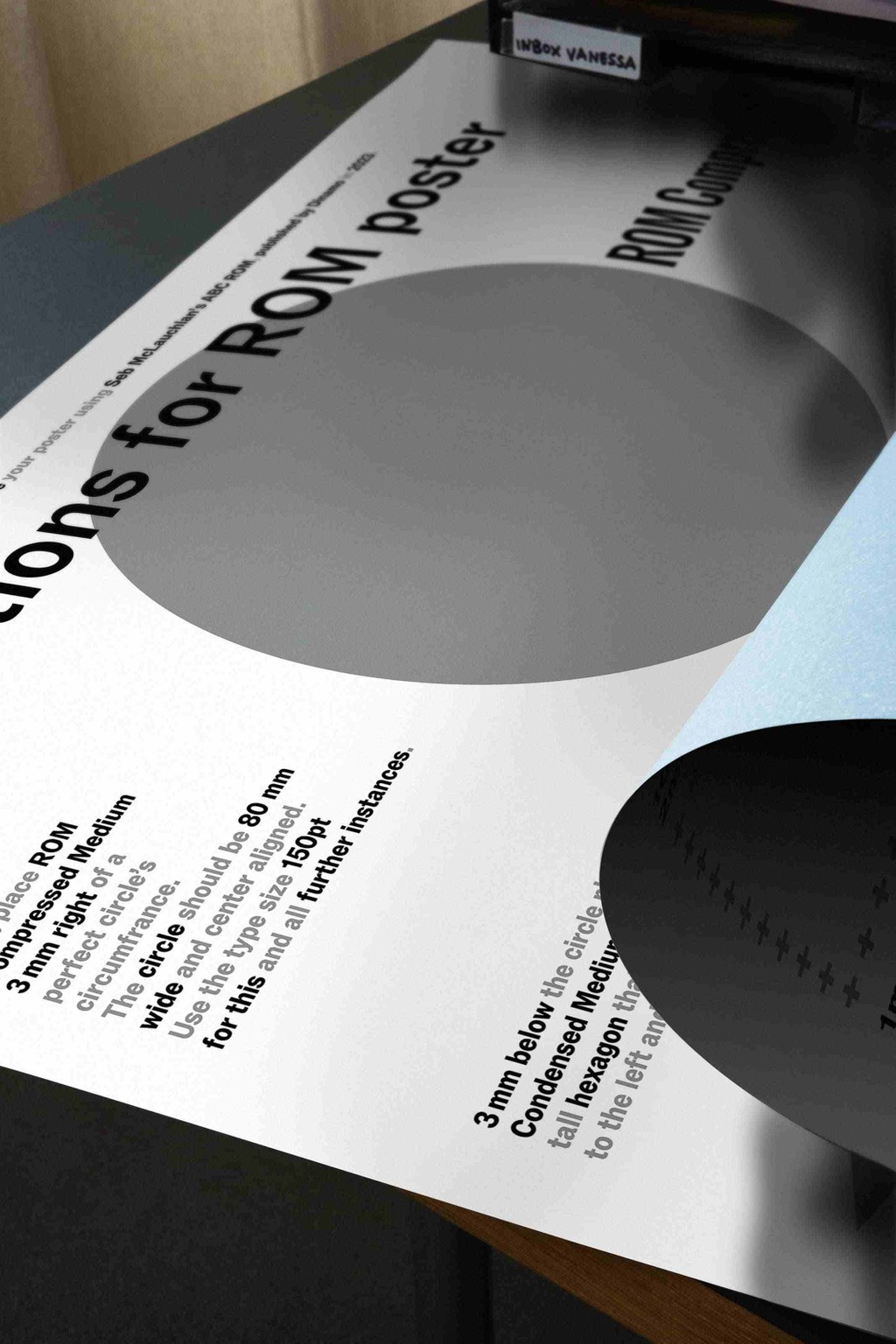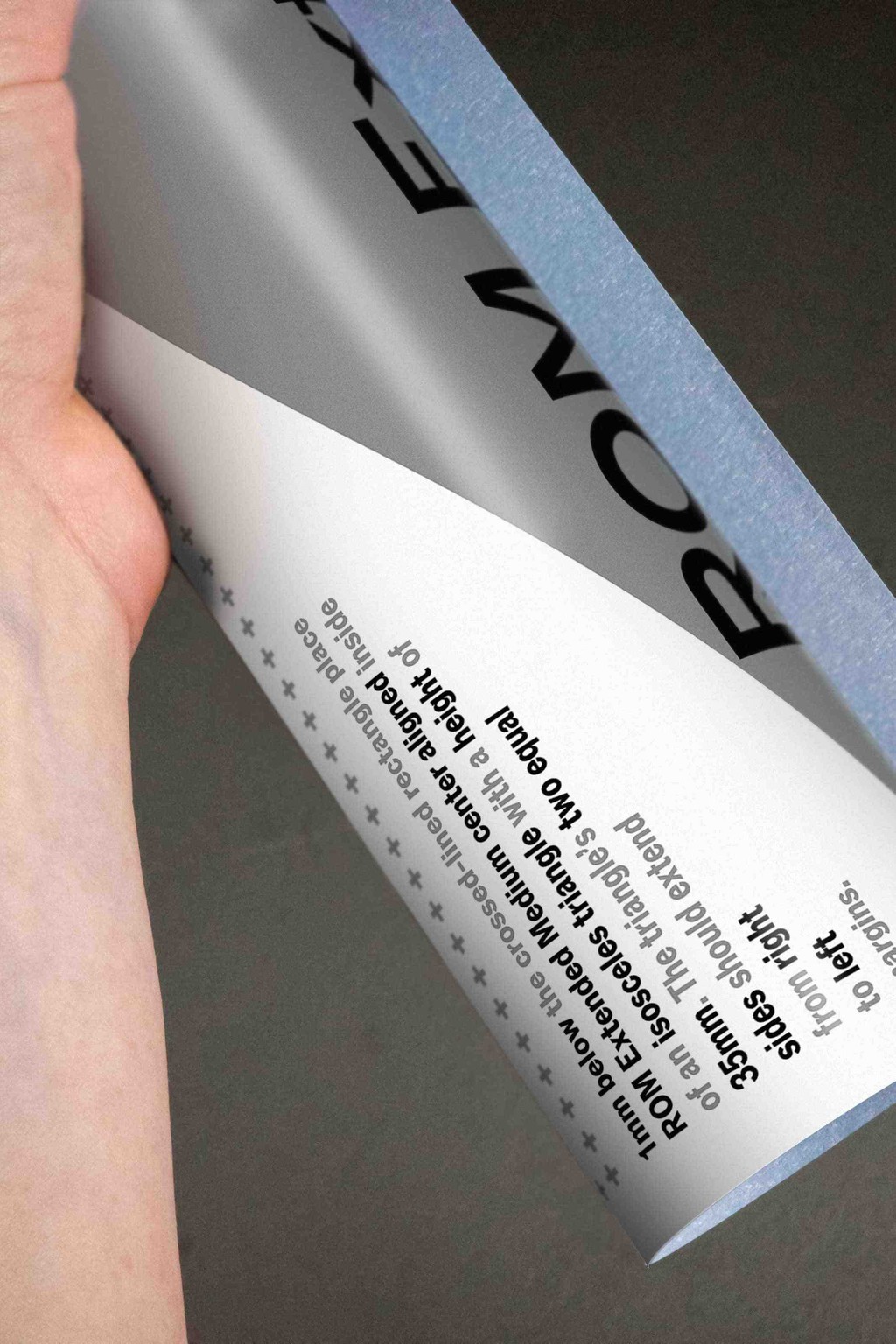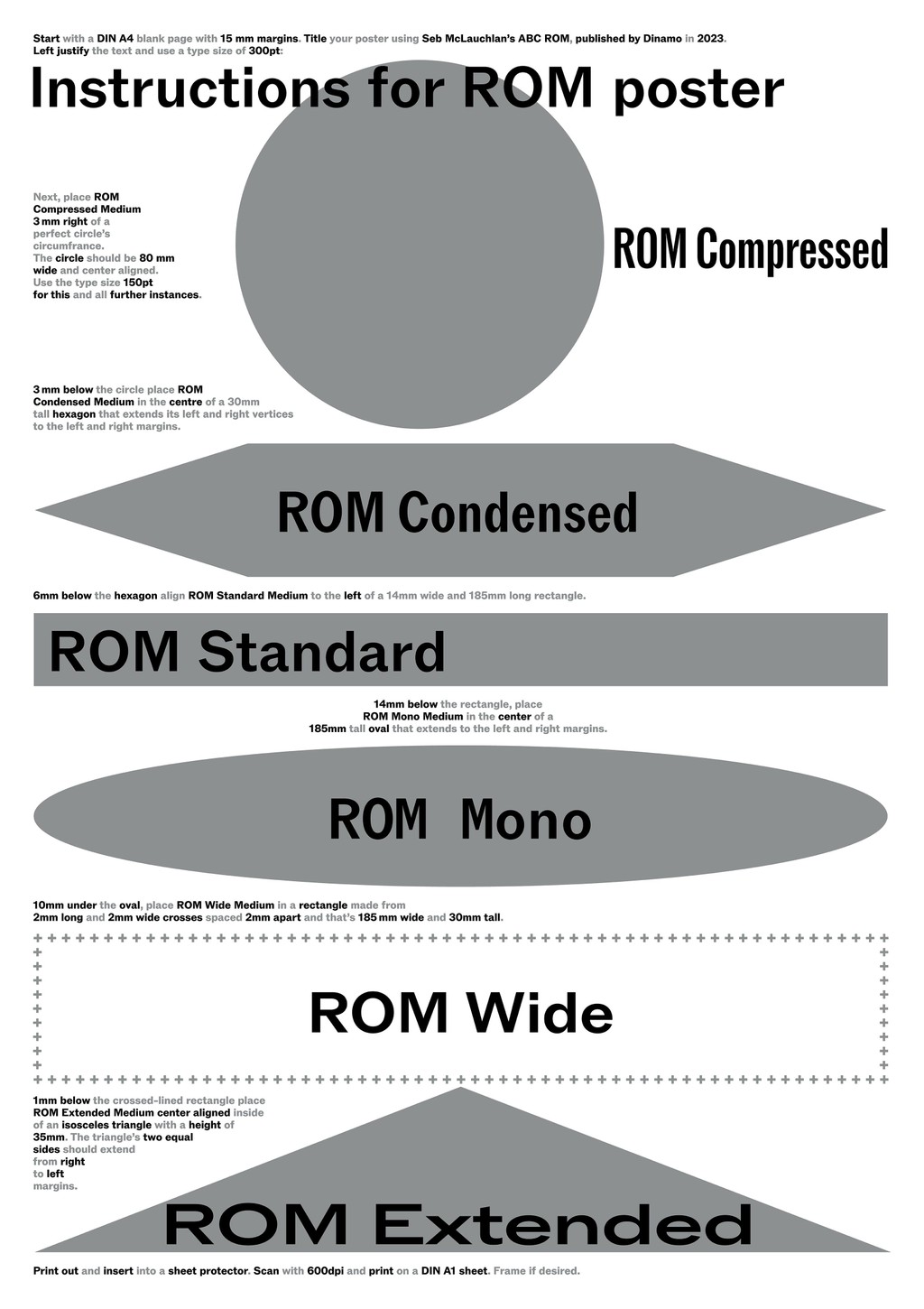
ROM Poster
Poster for ROM, a sturdy, confident fusion of classic Grotesk and Gothic typeface styles, channeling typefaces found in 1960s art catalogs. For Sol LeWitt. A1 (59.5 x 84.1 cm), offset black and silver print.
Design: Mathias Lempart and Sascia Reibel